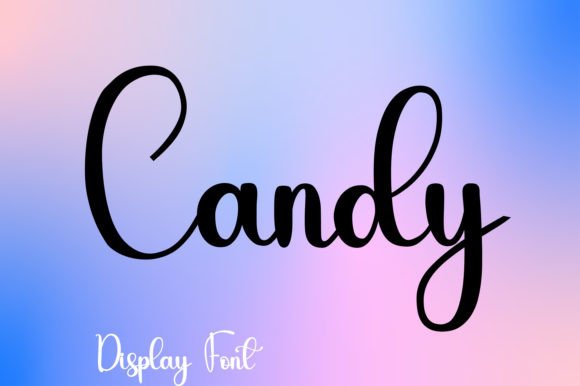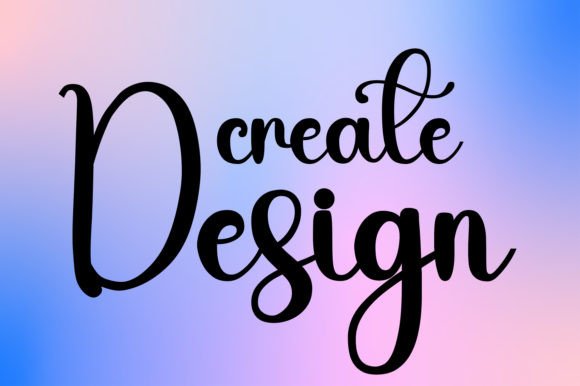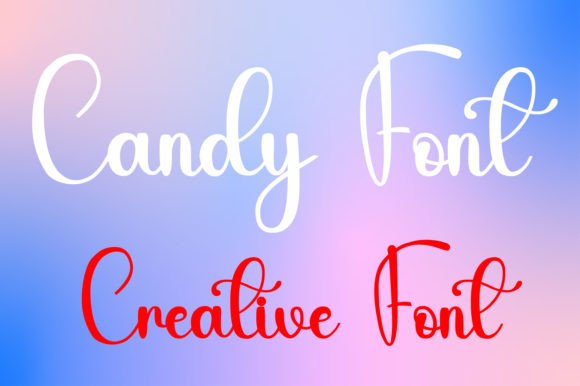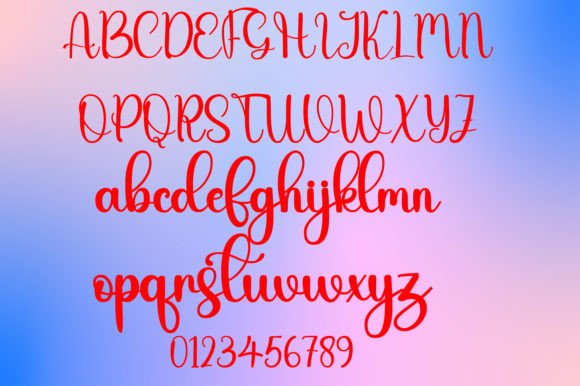
Candy Font
About Candy Font
Candy Font is a sweet handwritten script that brings charm and simplicity to your projects. With casual strokes and a warm personality, this typeface is designed to make your creative work more inviting and unique. Because of its approachable style, Candy Font is perfect for invitations, posters, greeting cards, crafts, and branding.
A Sweet Handwritten Typeface with Personality
Handwrittenfonts are often loved for their authenticity, and Candy Font captures that perfectly with smooth curves and simple lines. Its structure makes text approachable while still keeping it clean and readable. Moreover, its casual rhythm adapts well to different projects. As a result, this font offers both flexibility and charm, making it a valuable addition to any designer’s toolkit.
If you enjoy working on stationery and personal projects, Candy Font will be a wonderful companion. For example, it can turn a wedding invitation into a stylish keepsake or make a birthday card feel more personal. In addition, it works beautifully for thank-you notes, seasonal greetings, and party invitations. Because of its sweet personality, every message looks more heartfelt and memorable.
A Script Typeface for Logos and Branding
Businesses and creatives looking to enhance their branding with friendliness can rely on Candy Font. It adds individuality and warmth to logos, labels, and packaging. Furthermore, on social media, it improves posts, banners, and stories with an approachable handwritten style. When paired with sans serif fonts, Candy Font creates balance between casual charm and professional readability.
Another advantage of CandyFont is its adaptability across formats. In print, it works well on posters, flyers, merchandise, and magazines. Digitally, it enhances websites, blogs, and presentations with a playful handwritten look. Since it scales effectively from small captions to large titles, it remains consistent in style and readability.